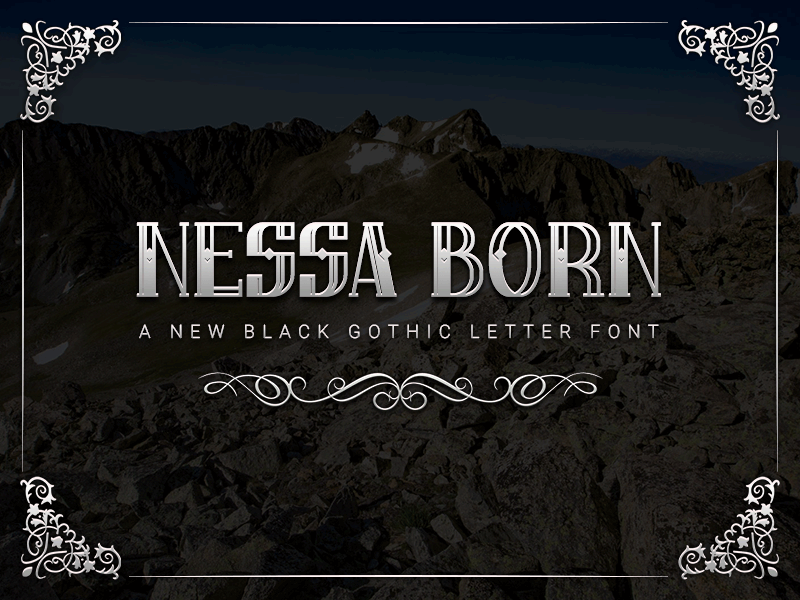
Nessa Born - Black Letter Font
New Black Letter Font by BullzArtDesign. Available here - https://creativemarket.com/ArtFaks/1954014-Nessa-Born-Black-Label-Font